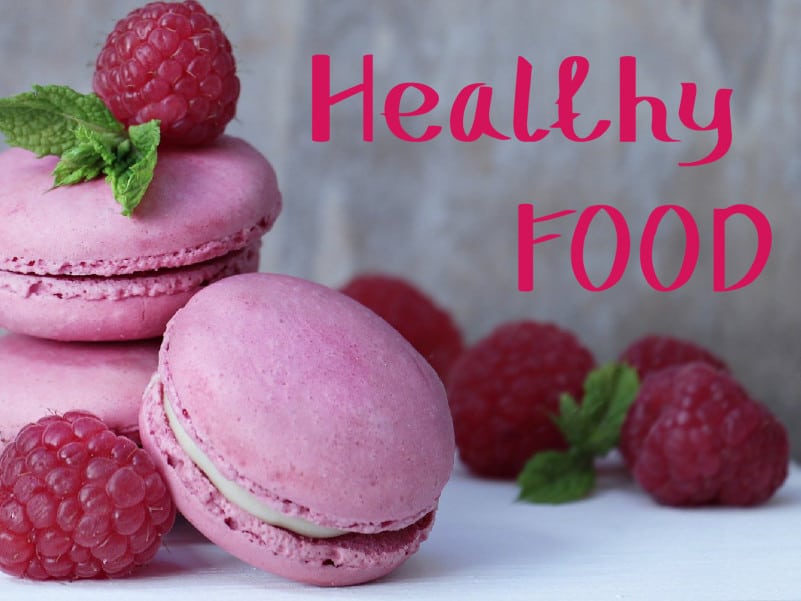
Torame Handwriting Font
Introducing Torame Handwriting Font, it’s a friendly and fun display font. Torame Handwriting Font is best suited for headlines of all sizes, as well as for blocks of text that have both maximum and minimum variations.
Ready to use for projects, texts, letters, or whatever you want!